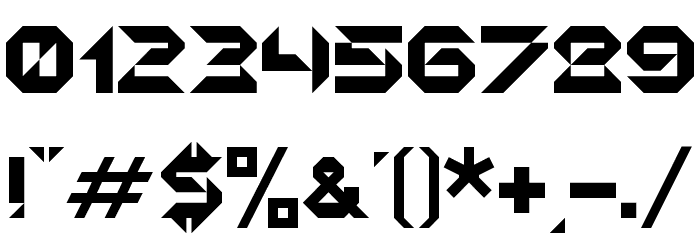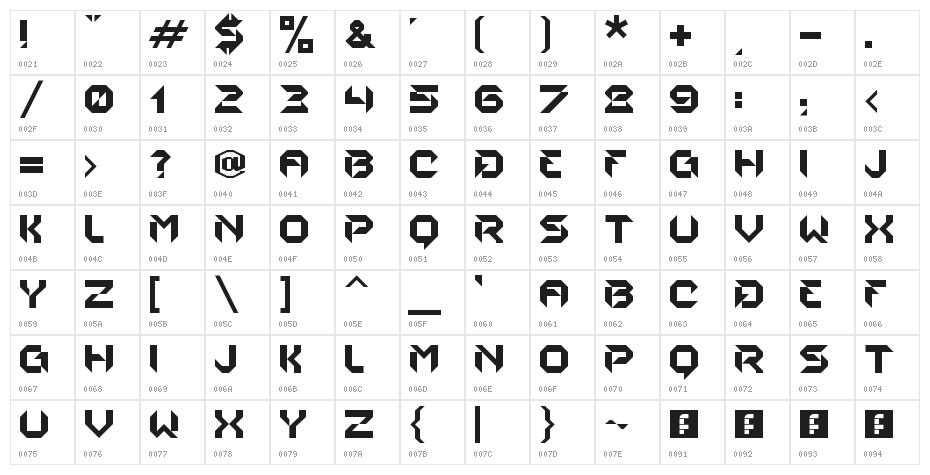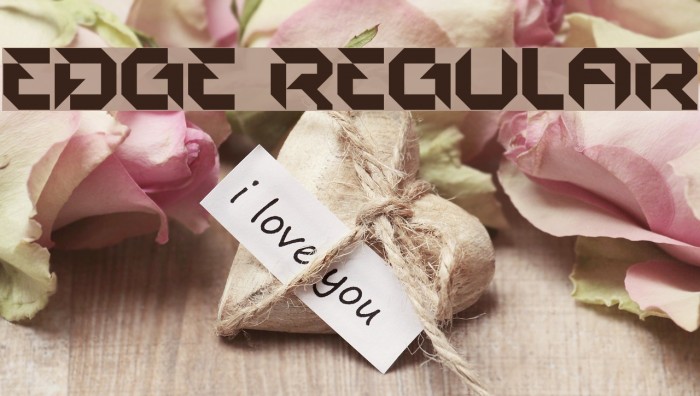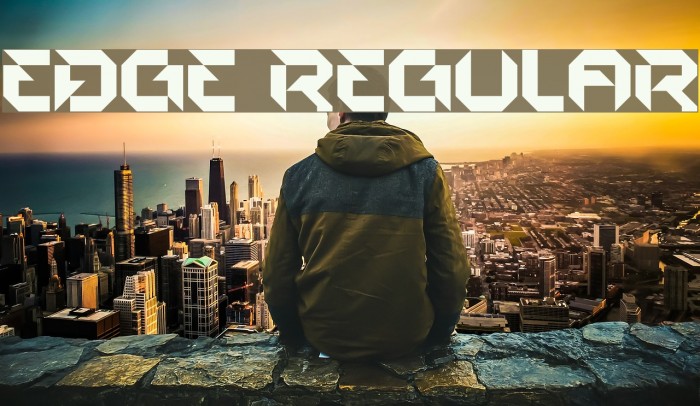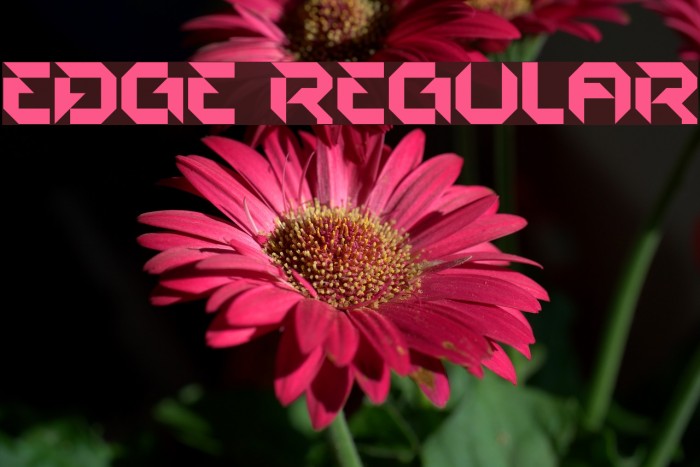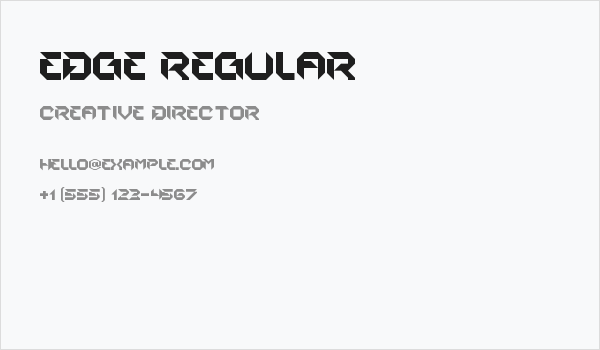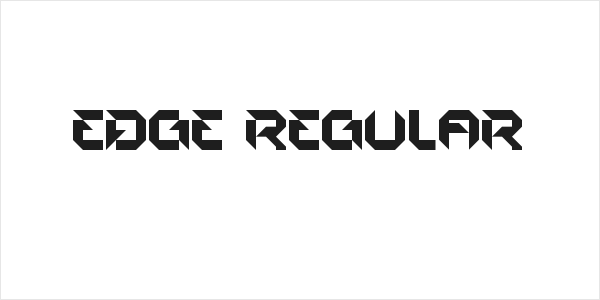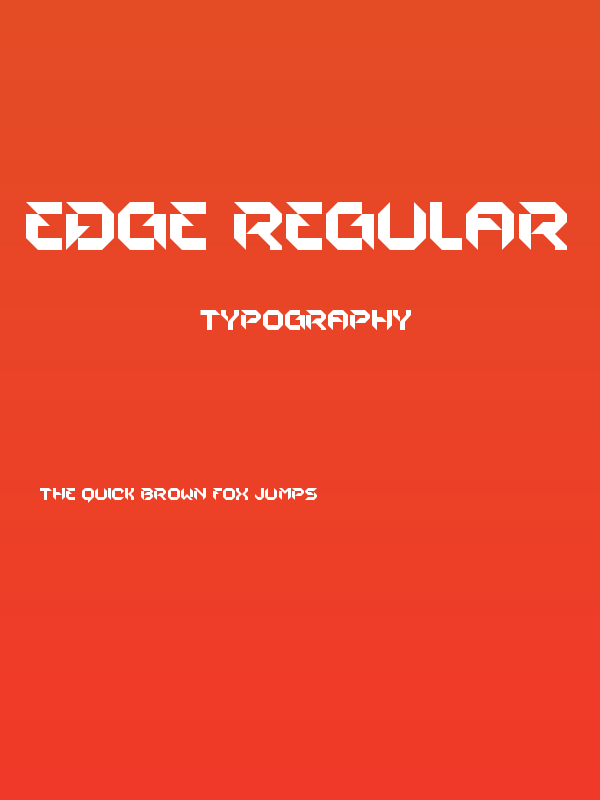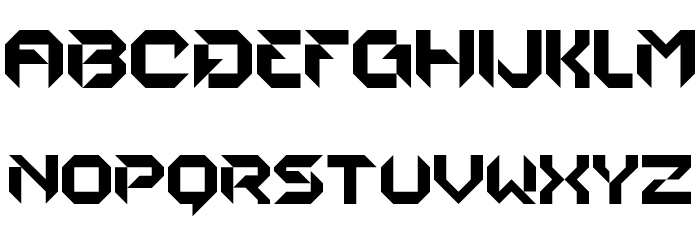
EDGE Regular Font
EDGE Regular Description
This font features a bold, geometric design with sharp angles and a futuristic aesthetic. The characters are constructed with a series of straight lines and angular cuts, giving it a distinct, edgy appearance. The uppercase and lowercase letters maintain a consistent style, with the lowercase being slightly smaller but equally bold. Numbers and special characters follow the same design principles, ensuring uniformity across the typeface. The font's unique style makes it stand out, suitable for projects that require a modern and dynamic look.
| Proposed Projects | Ideal for branding, posters, video game graphics, and sci-fi themed designs. |